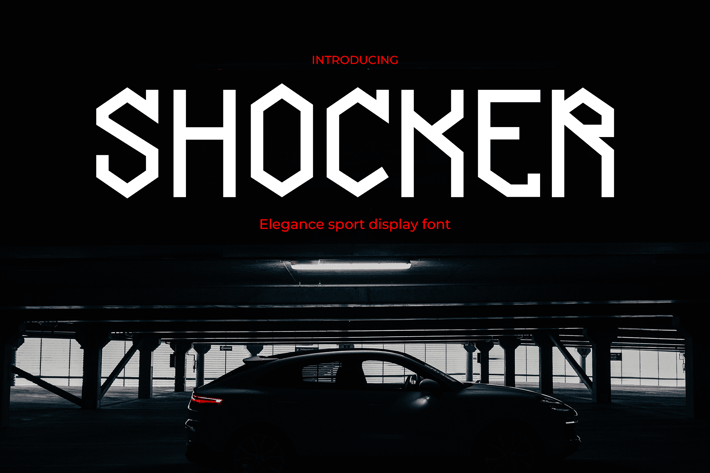
Racing Font - Shocker
Shocker sports racing font is a sleek and modern font designed for sports and racing themes. With its futuristic and cutting-edge style, this font is perfect for high-energy projects that demand attention. Ideal for logos, posters, and branding related to sports and racing, Shocker delivers a bold and dynamic look that captures the thrill and speed of the track.